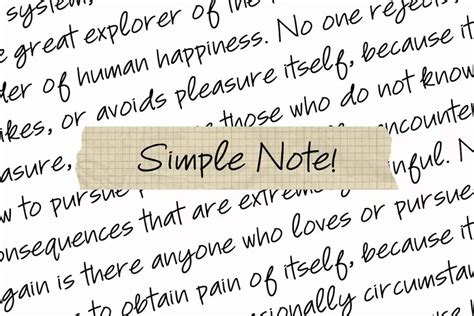
Make A Note Font. Web make a note is a unique and classic handwritten script font decorated with classy and casual shapes. Every font is free to.
Every font is free to. Web make a note is a unique and classic handwritten script font decorated with classy and casual shapes. Web 1 to 15 of 118 results. Click to find the best 228 free fonts in the notes style.